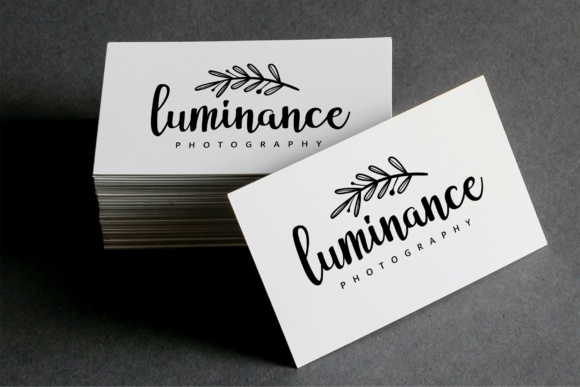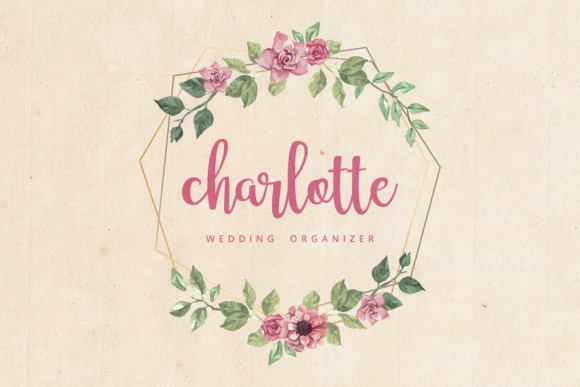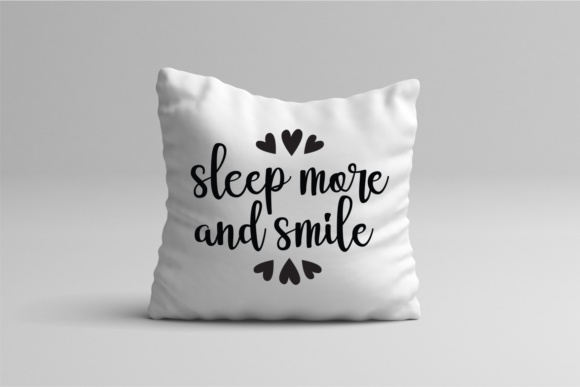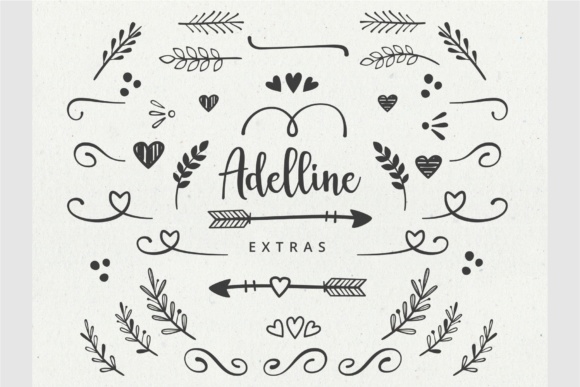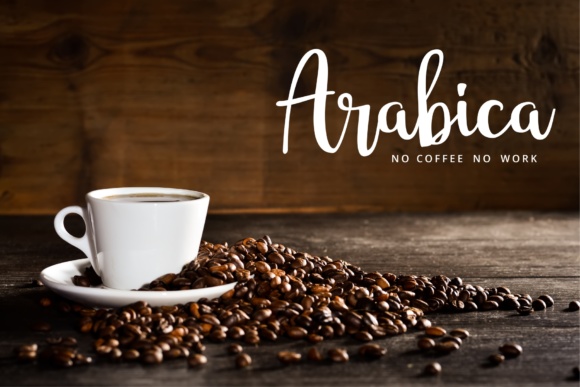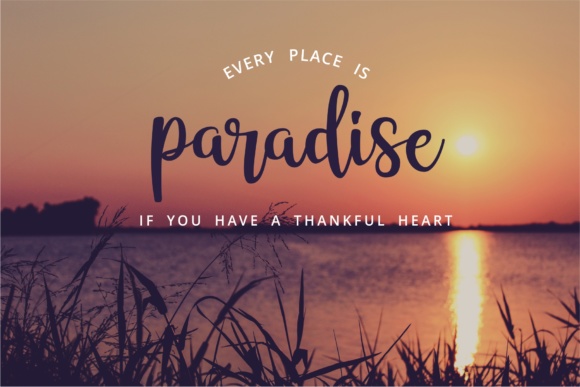
Adelline Font
About Adelline Font
Adelline is a beautiful and elegant script font, ideal for titles and branding. This font has a smooth and natural hand-lettered appeal, and will give your designs a breezy feel.